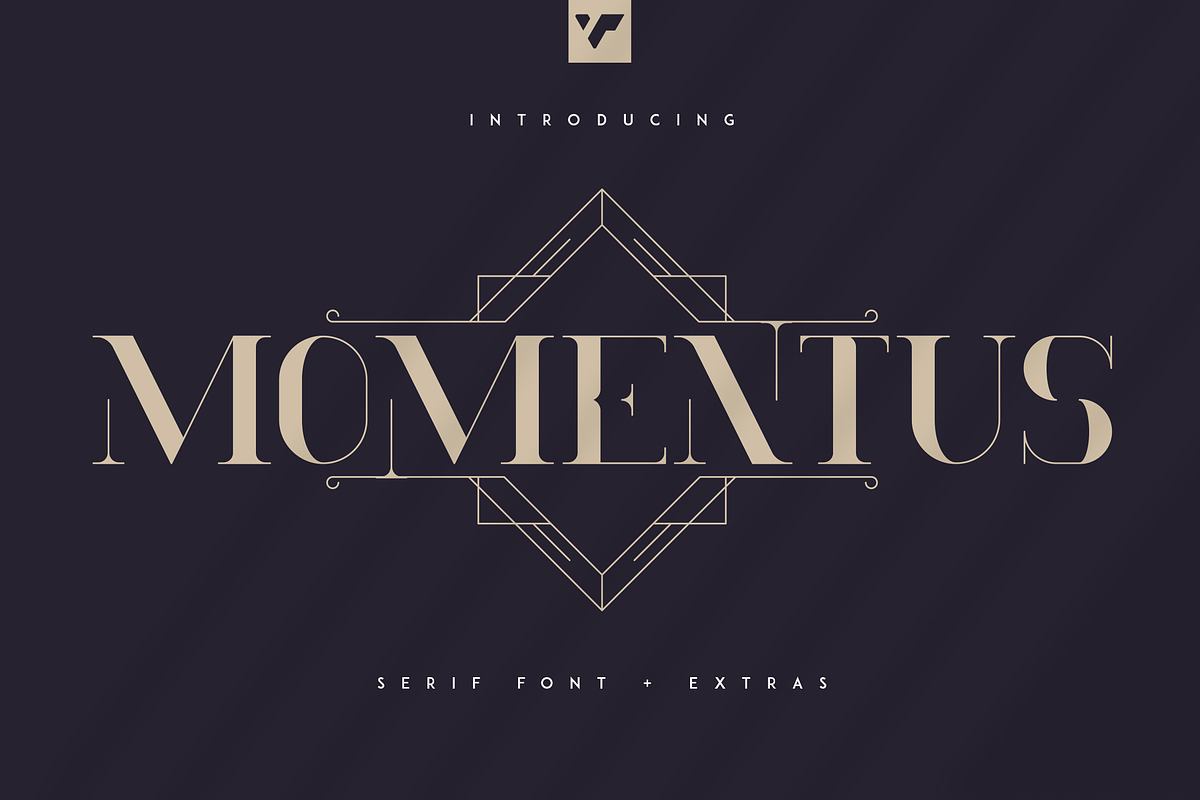
Momentus Serif Font + Extras Free Download is an elegant and modern serif typeface that blends classic sophistication with contemporary design. Featuring clean lines, balanced proportions, and versatile letterforms, this font is perfect for branding, editorial designs, packaging, and high-end promotional materials. The included extras—such as stylistic alternates and decorative elements—offer even more design flexibility to make your typography stand out.
Momentus works beautifully for both large titles and smaller body text, making it ideal for a variety of projects, from luxury product branding to professional presentations. You can test it out for free in your personal designs, but a commercial license is required for any business or monetized use.
Elevate your designs with Momentus Serif Font + Extras Free Download and create a timeless, stylish look with the perfect combination of modern elegance and classic appeal. Perfect for designers looking for versatility and sophistication in their fonts.